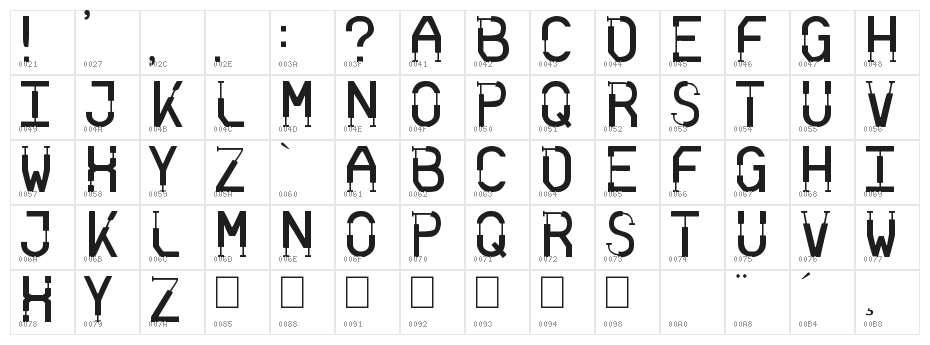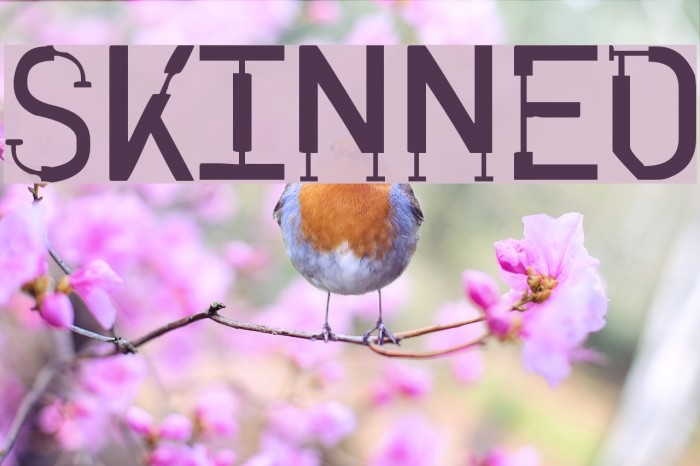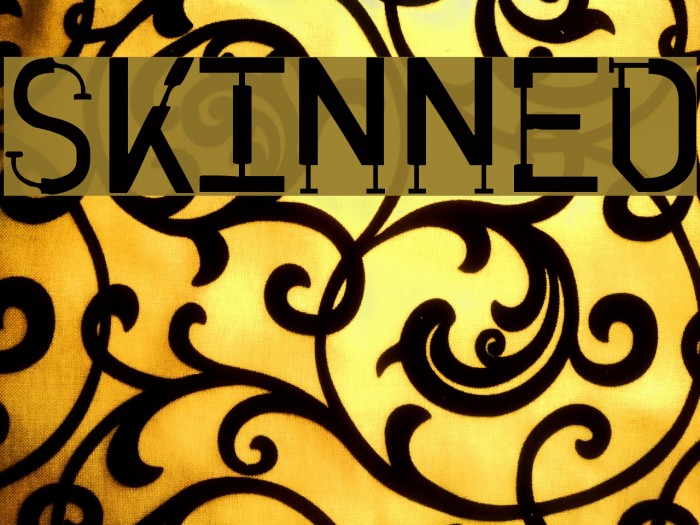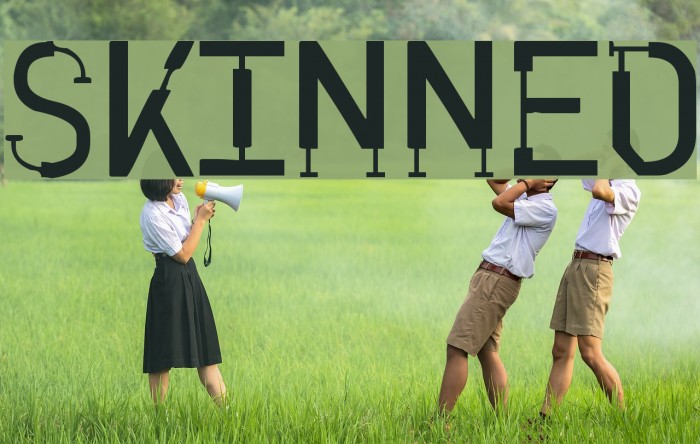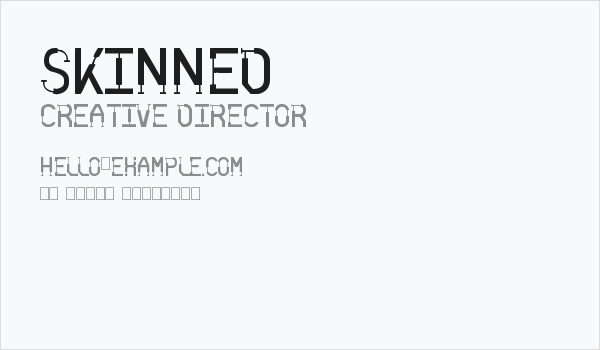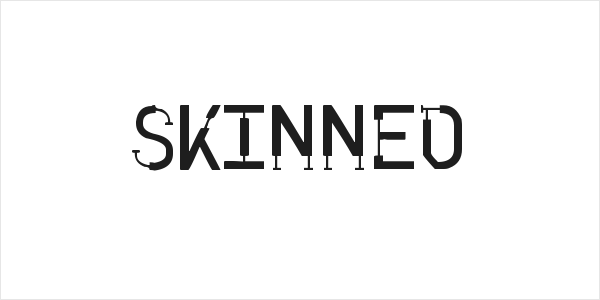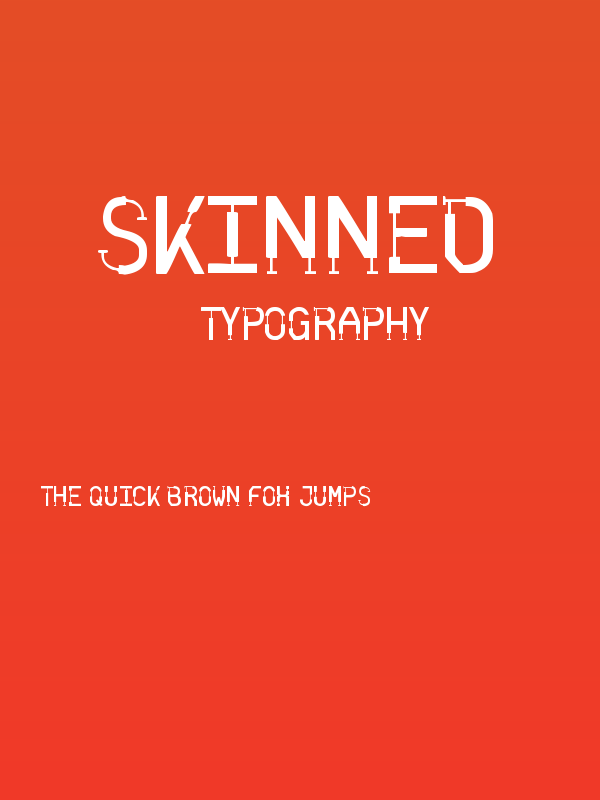
Skinned Font
Skinned Description
This font features a bold and geometric design with a distinct industrial feel. The characters are constructed with a combination of straight lines and sharp angles, giving it a mechanical and futuristic appearance. The uppercase letters are particularly striking, with a uniform height and width that create a cohesive look. The font's design incorporates a stencil-like effect, with breaks in the strokes that add to its unique style. This characteristic is consistent across both uppercase and lowercase letters, as well as numbers and special characters. The overall aesthetic is modern and edgy, making it suitable for projects that require a strong visual impact.
| Proposed Projects | Ideal for branding, posters, and signage that require a modern, industrial look. |